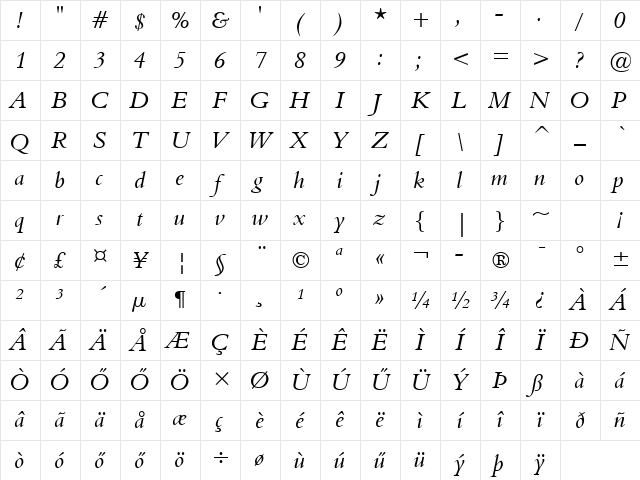
Huni_Aaldi Regular
Design Context for Huni_Aaldi
Huni_Aaldi is a composed and adaptable typeface that performs quietly and consistently across a wide range of design contexts.
Pro Tip: Use Huni_Aaldi in both headline and body roles to test its range before committing to a single application.